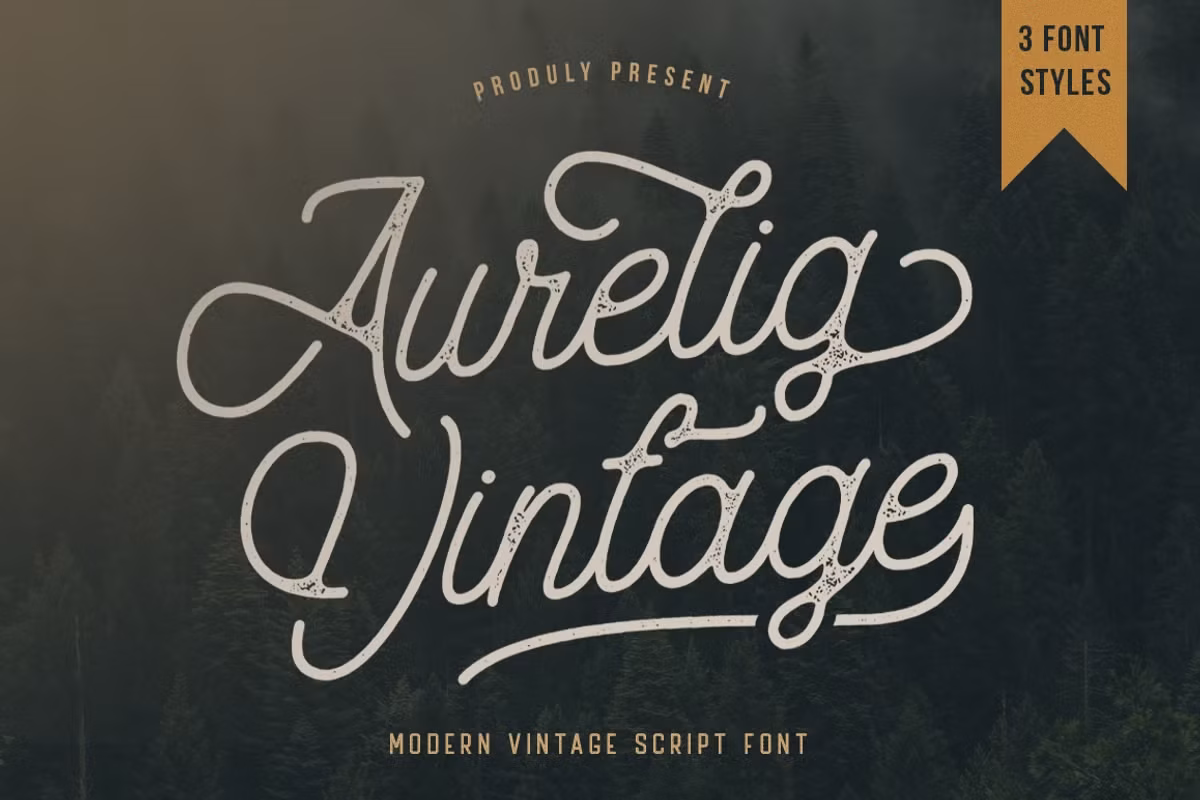
Aurelig Vintage Script 3 Fonts Free Download is a charming and elegant vintage-inspired font family that includes three beautiful script fonts. Perfect for branding, logos, invitations, posters, and any project that needs a retro or nostalgic touch, this font set offers a variety of styles to suit your design needs.
Each font in the Aurelig Vintage Script family has been crafted with careful attention to detail, featuring flowing letterforms, smooth curves, and a beautiful handwritten feel. Whether you're designing for a vintage brand, a stylish event, or creative personal projects, this font set provides all the charm and sophistication you need.
Add elegance and retro charm to your designs with the stunning Aurelig Vintage Script family!